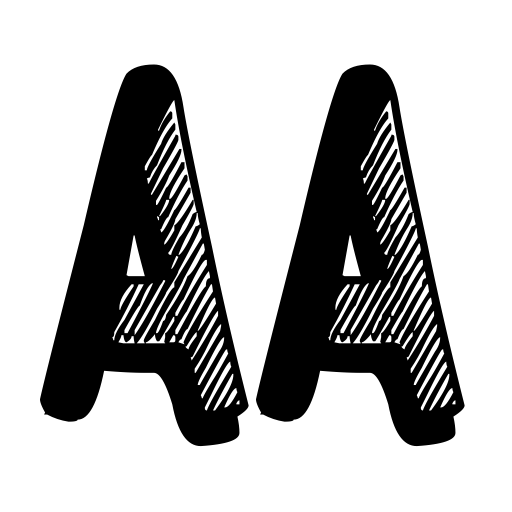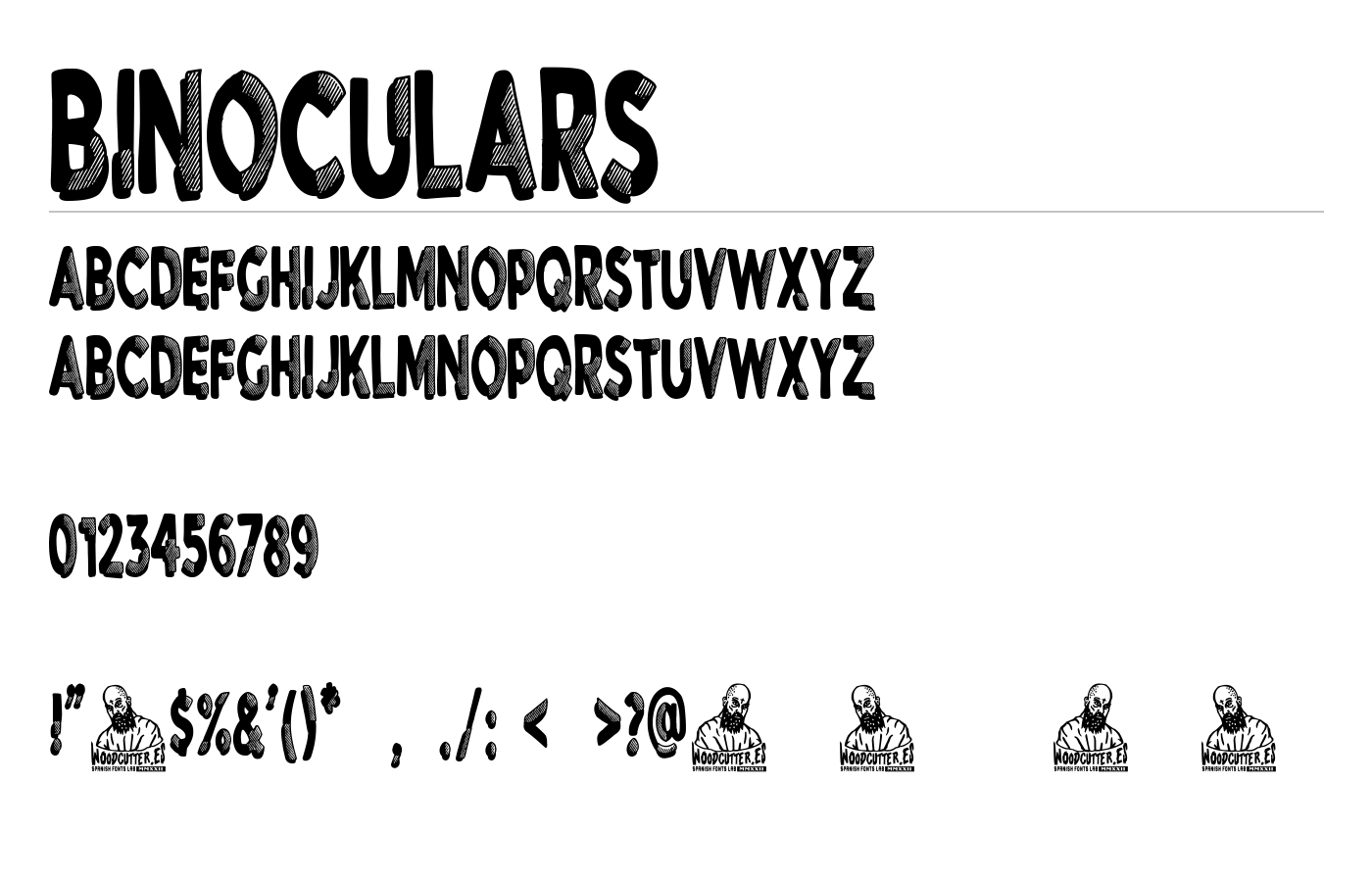
Binoculars is a bold, playful sans serif font with a hand-drawn feel, featuring tall, slightly condensed letterforms and distinct diagonal hatching inside the strokes for added texture. Its quirky and energetic style makes it perfect for fun, informal branding, posters, or creative headlines that want to grab attention with a unique and friendly personality. This font is best suited for eye-catching display use rather than long text.
About Binoculars Font